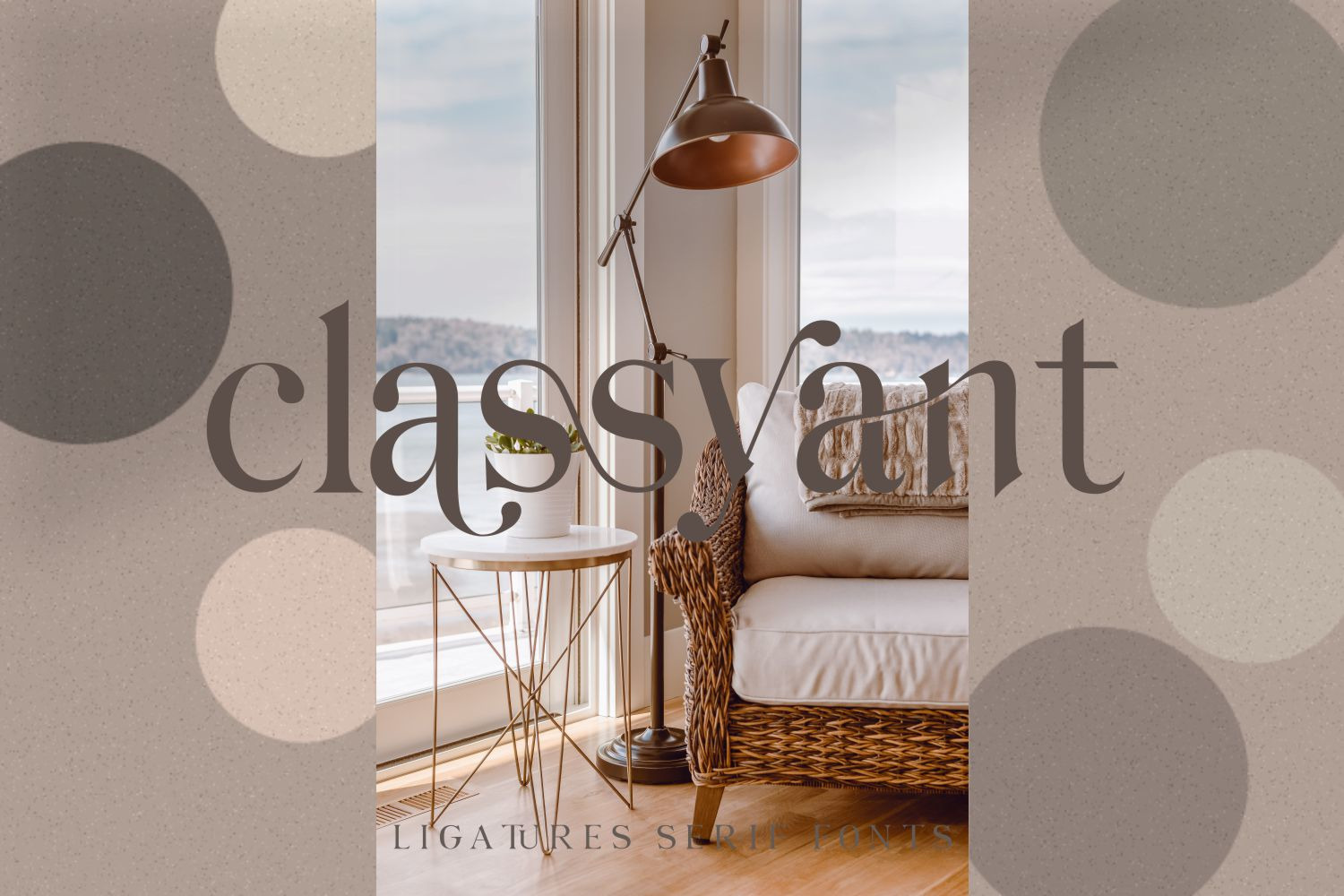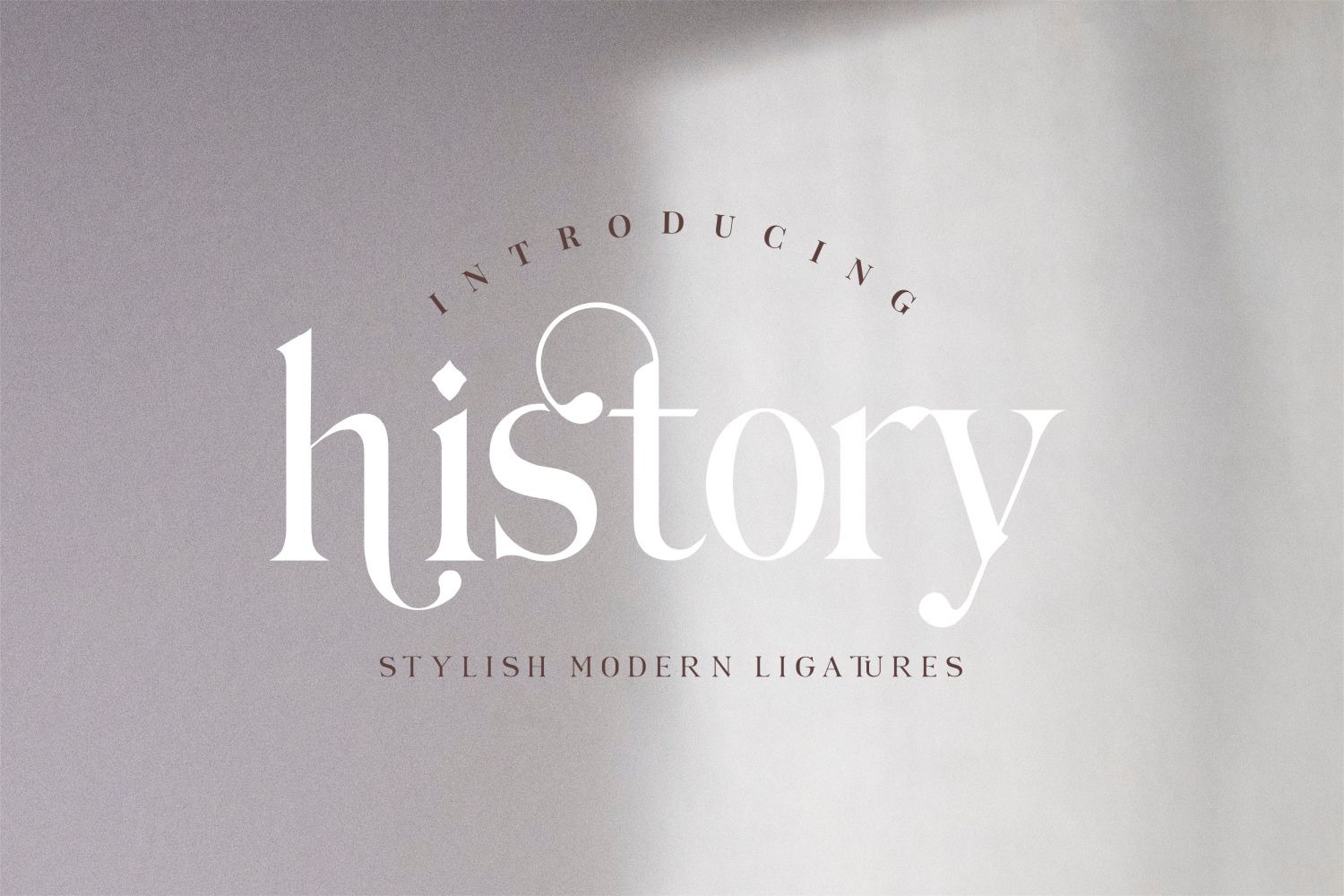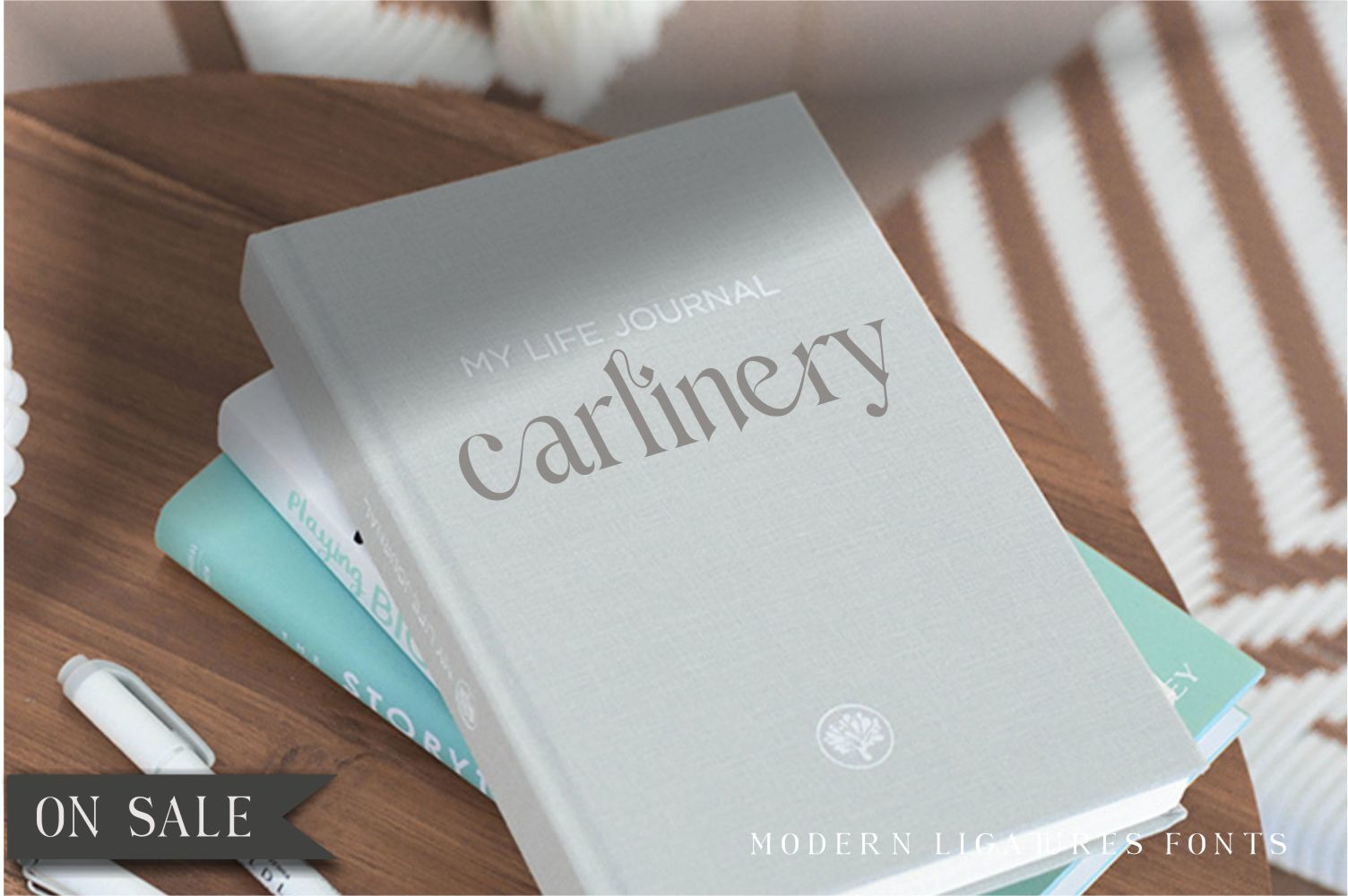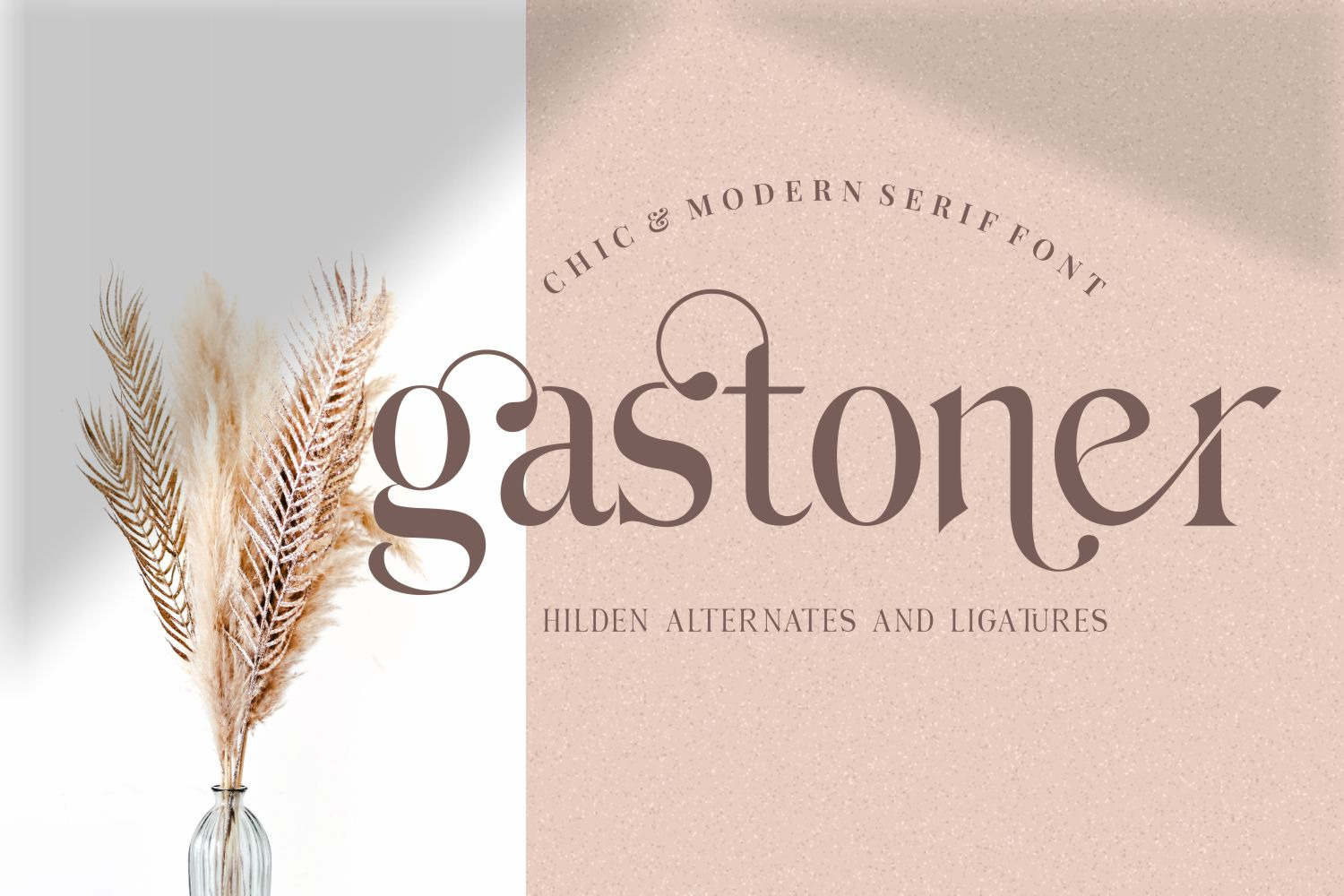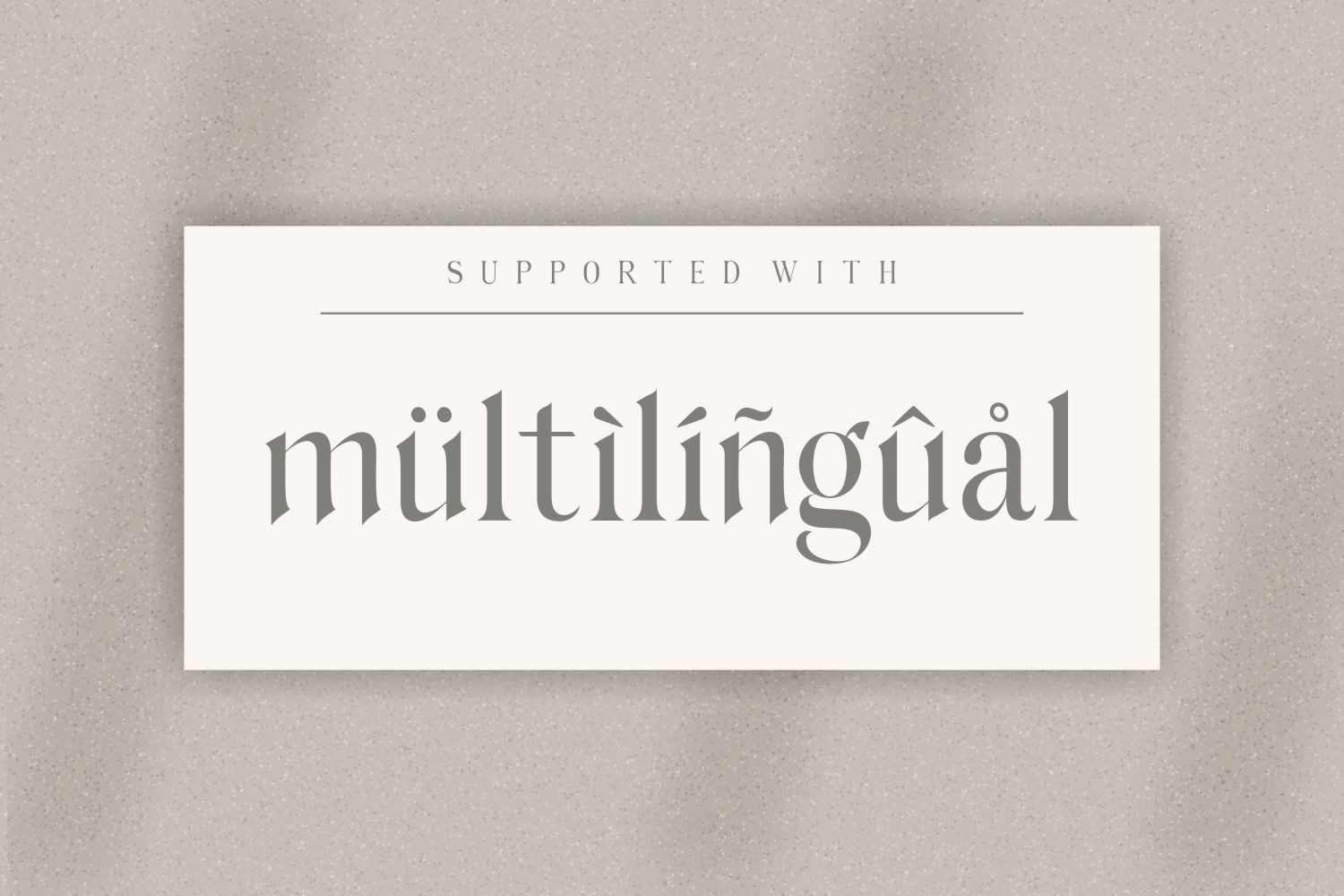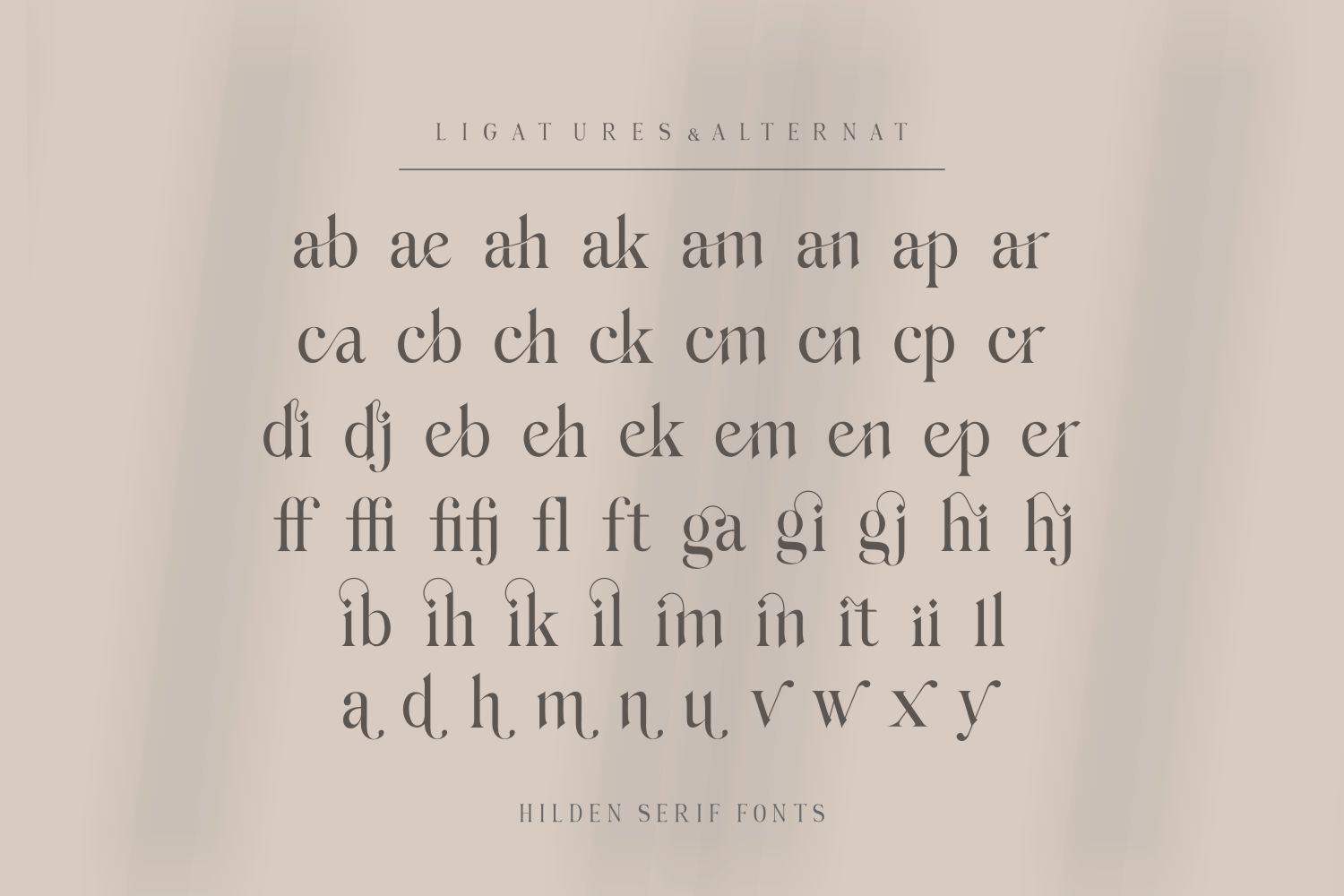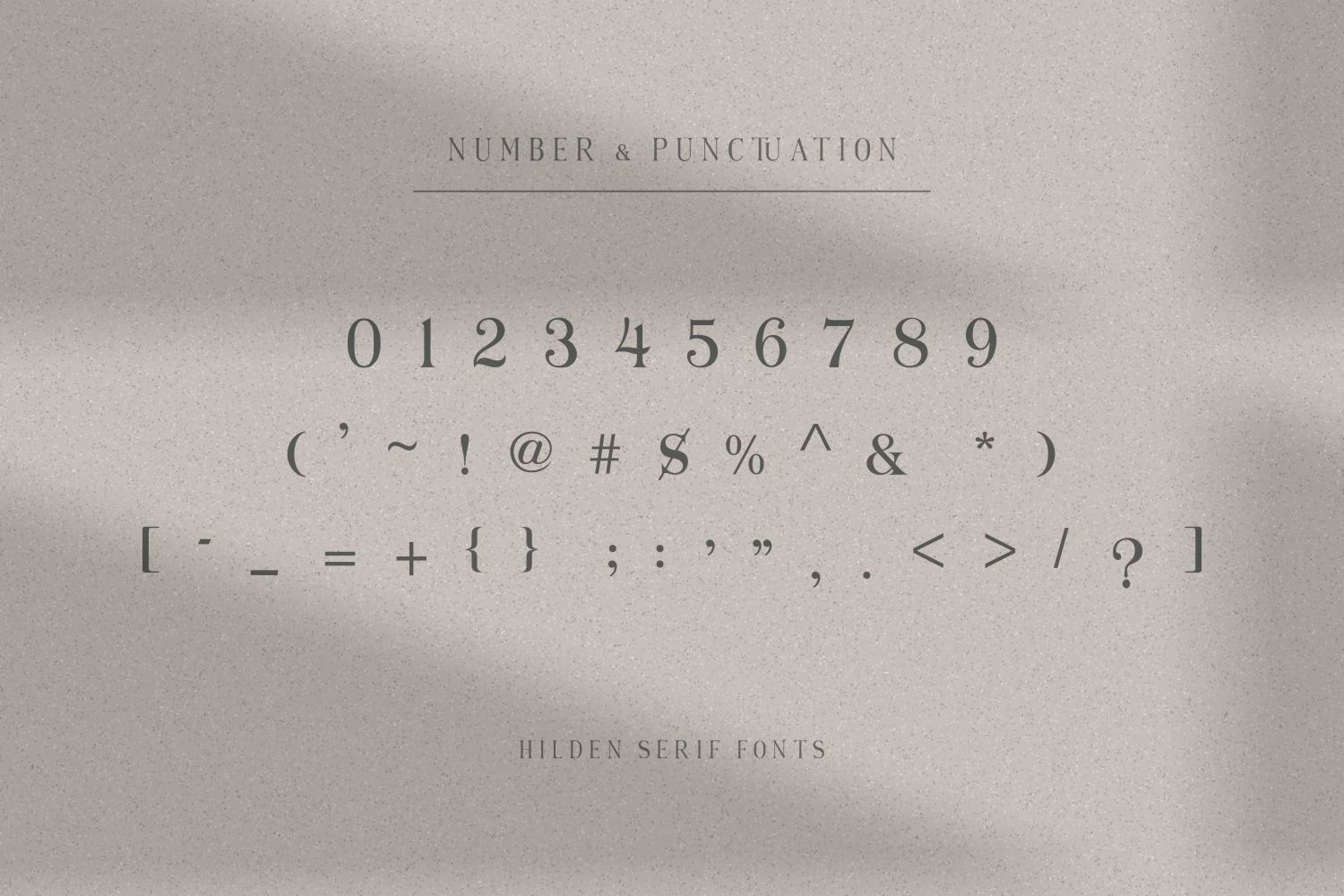
Hilden Font
Hilden is a stylish and elegant serif font. It has a refined and modern look. This font is PUA encoded which means you can access all of the glyphs and swashes with ease!